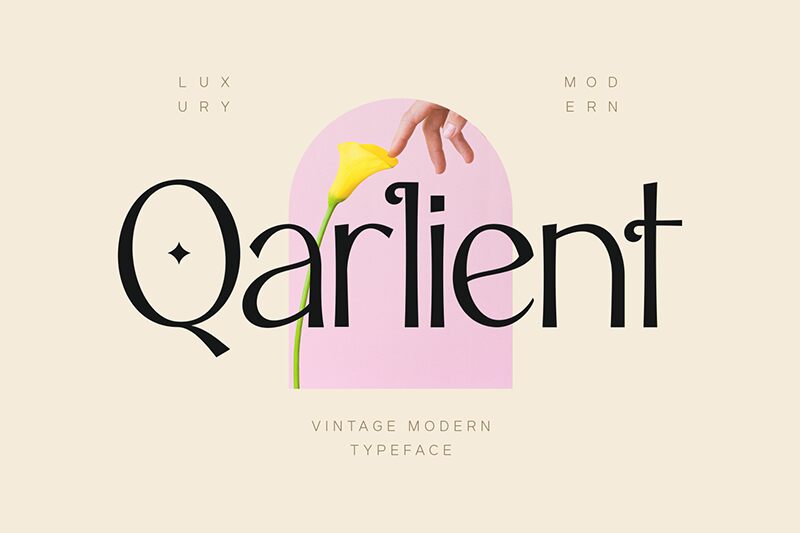
Qarlient Regular
Qarlient font by Pixesia Studio is a free display font whose verbose letters borrow the elegance of serif typefaces. While some designs look modern and simple, others are created with artistic flair. A sophisticated mood prevails within this collection which is suitable for brands that want to appear upscale and classy.
Logos, packaging design, headlines, magazines, movie posters, invitations, business cards, social media posts… This list can be expanded to brochures design among other projects which the font will make captivating. Enjoy!